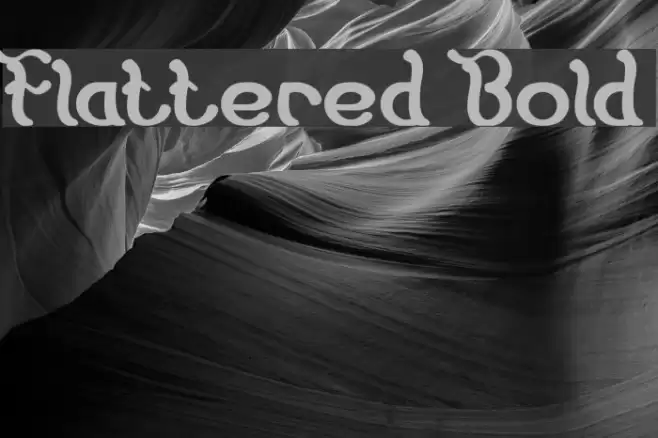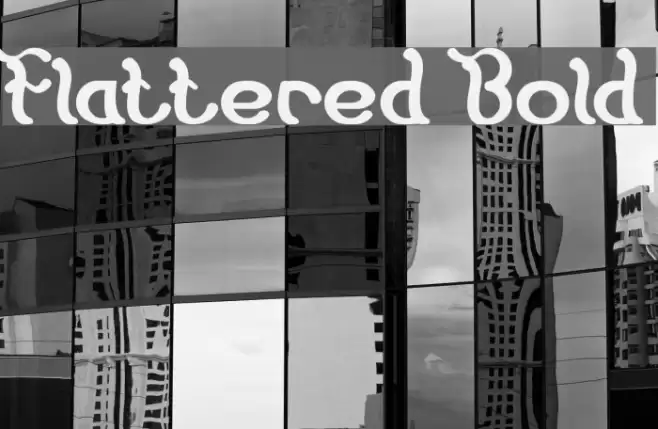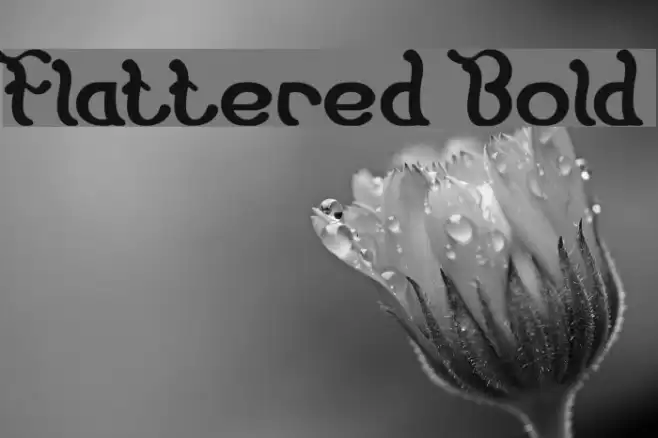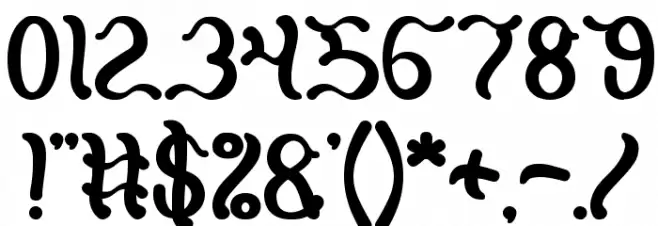
Flattered Bold Font
Flattered Bold Description
This font features a bold and playful design with a unique, curly style that adds a whimsical touch to any text. The characters are thick and rounded, with exaggerated curves and loops that give it a distinctive, decorative appearance. The uppercase and lowercase letters maintain a consistent style, while the numbers and special characters complement the overall look. This font's boldness and decorative elements make it stand out, making it ideal for projects that require a fun and eye-catching typeface.
A bold, playful font with curly, decorative elements from Uncategorized fonts.
- Proposed Projects: Ideal for children's books, playful branding, event invitations, and creative posters.